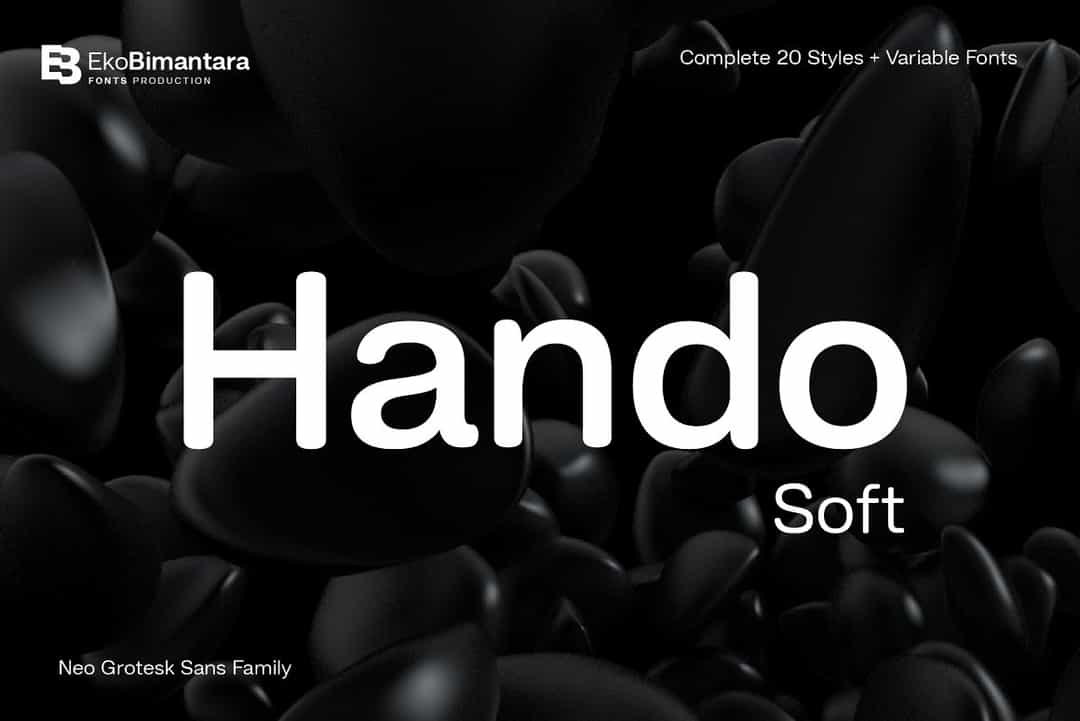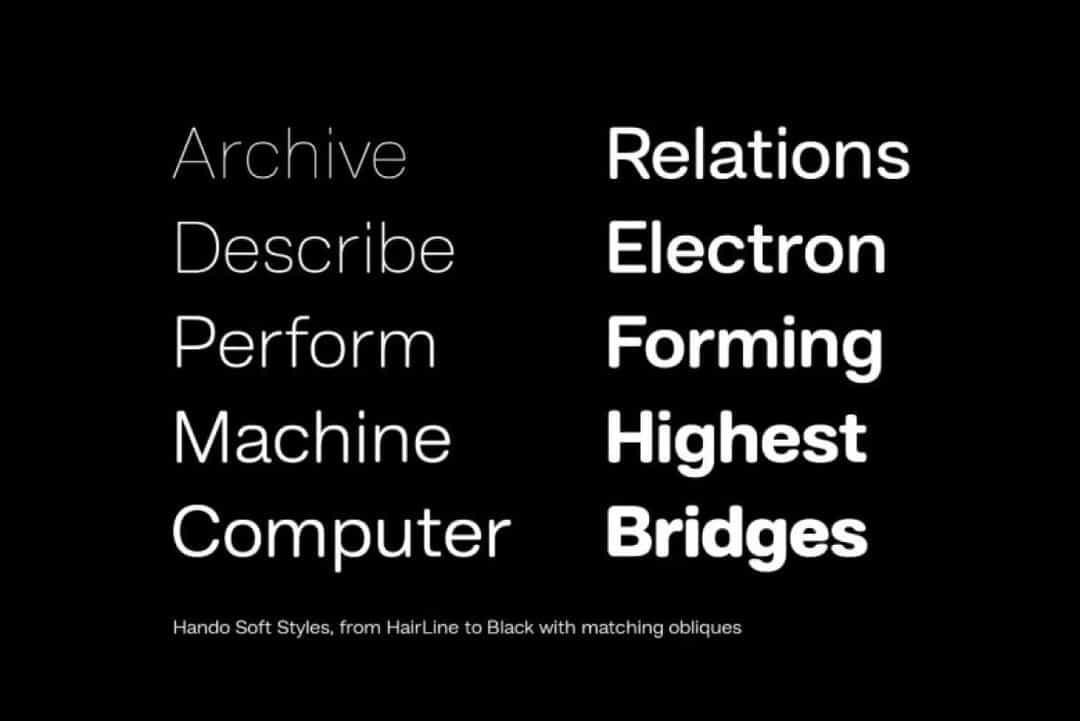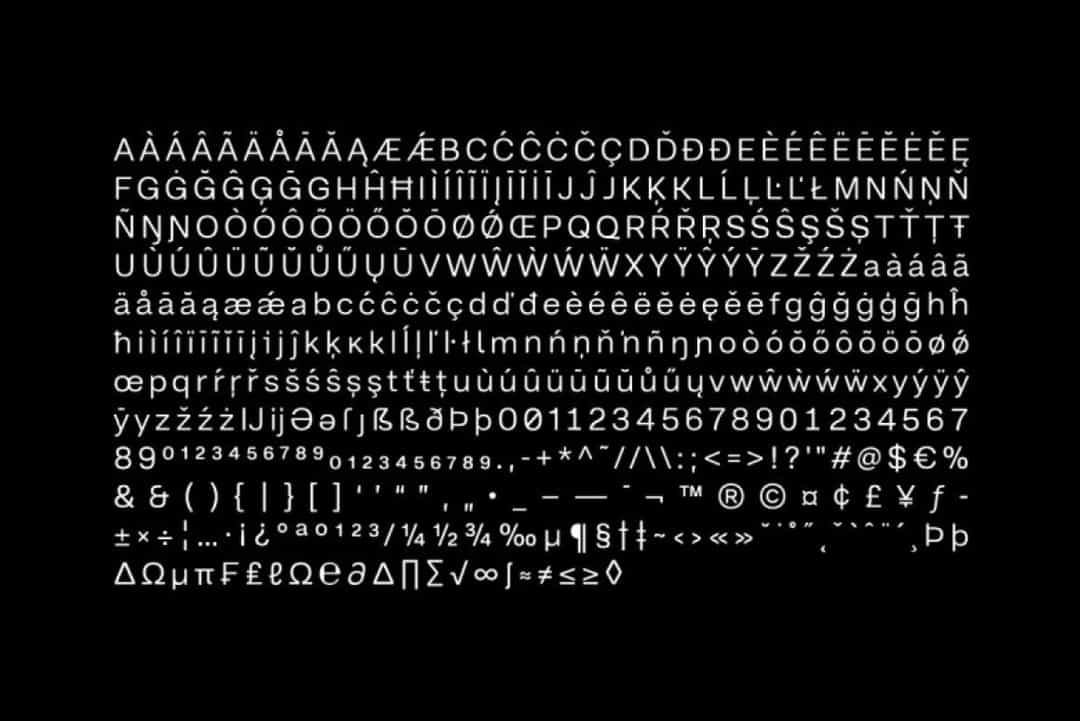
Hando Soft offers an alternative to the Hando Neo Grotesk sans serif font family, featuring letters with smoother and more comfortable looking letters due to their rounded ends. Hando Soft can be used in an assortment of situations; its low x-height makes it suitable for reading purposes.